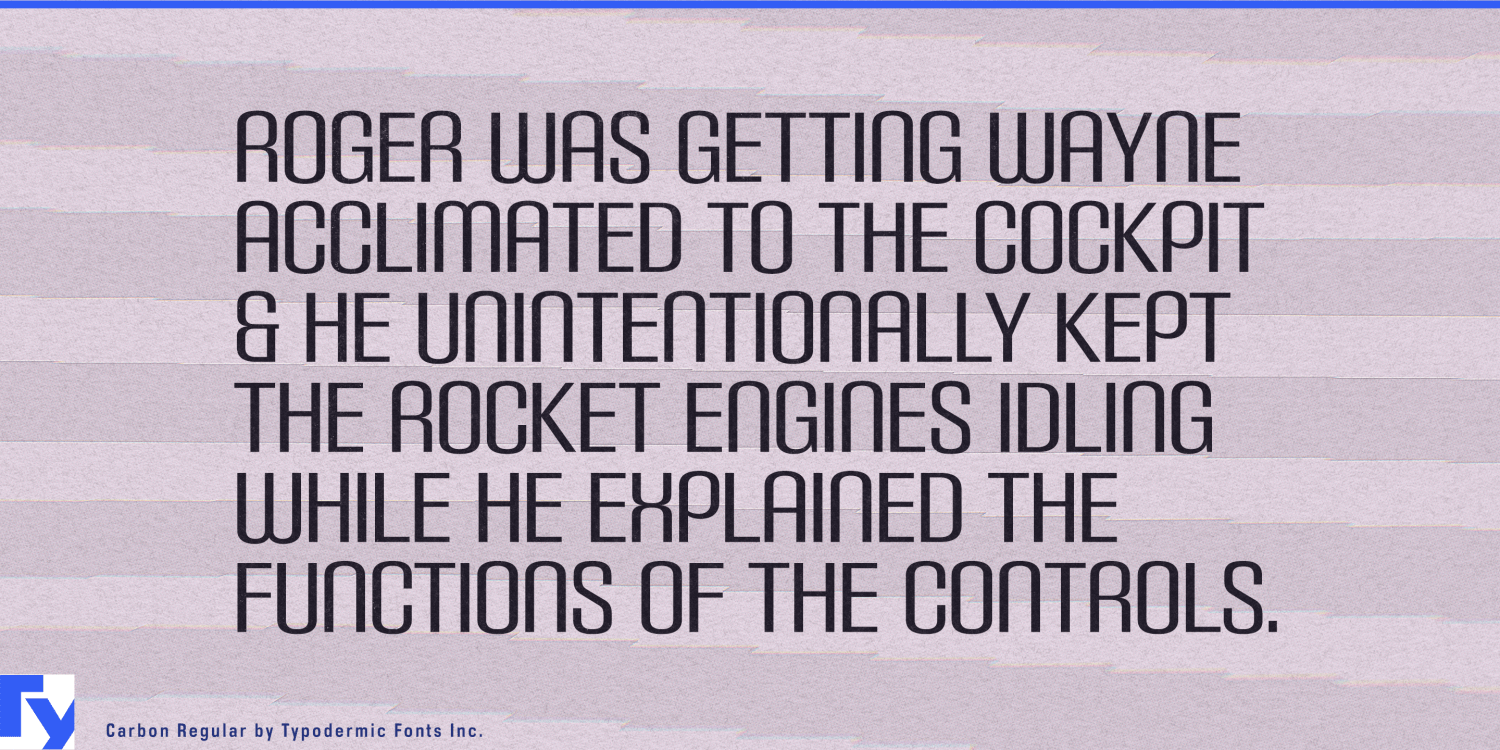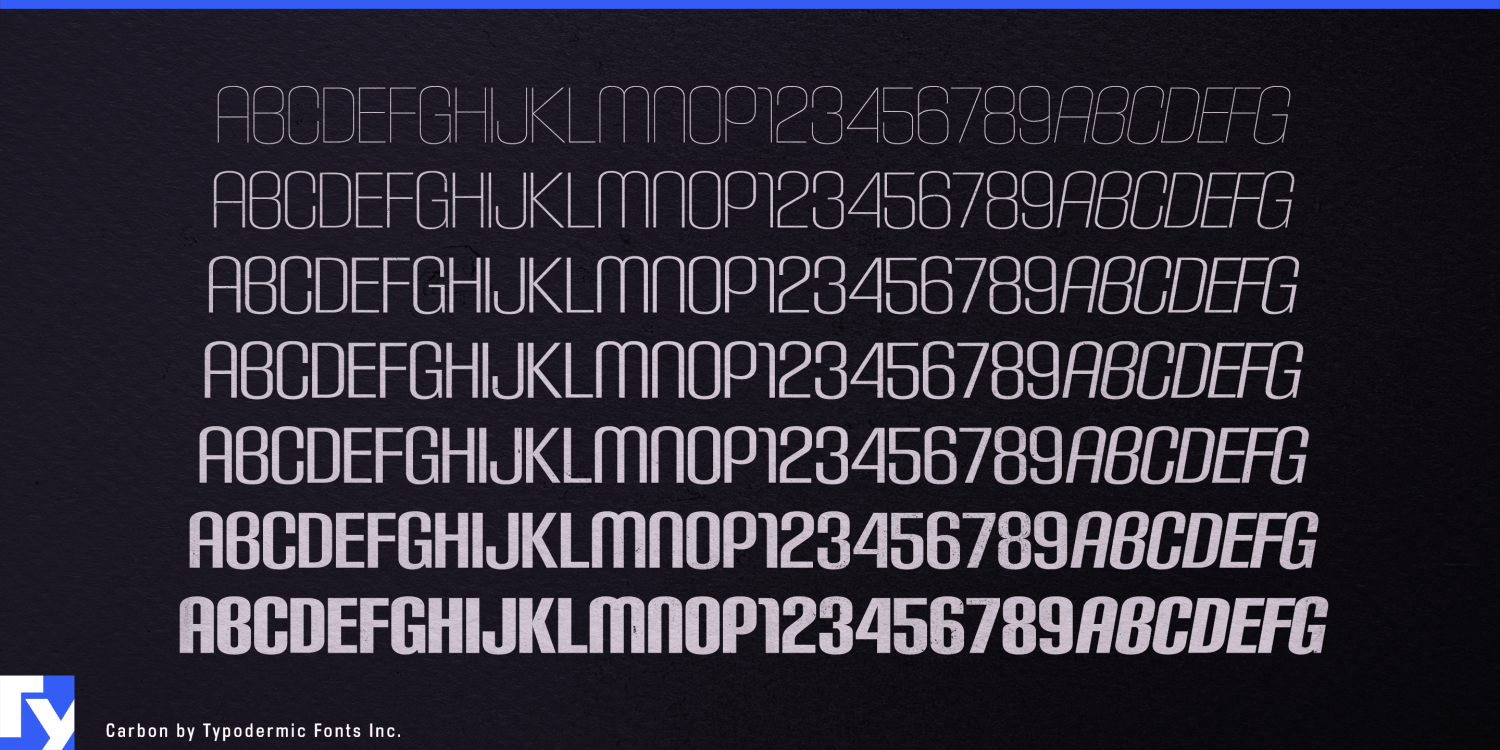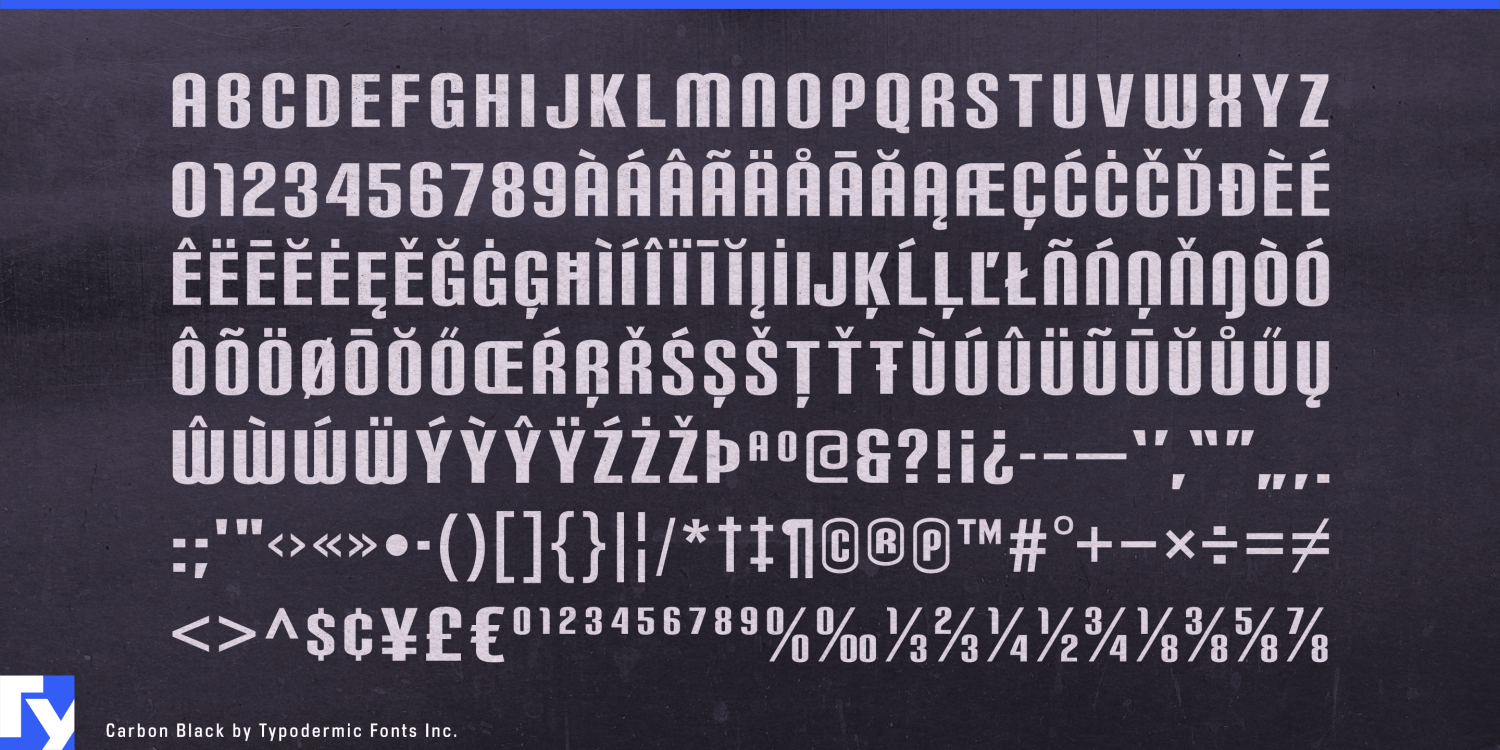
About Carbon
Carbon stands as a monument to typographic brutalism, a unicase typeface that has been shaping the landscape of graphic design since the dawn of the millennium. Its refined modularity and distinctive capsule forms challenge conventional notions of letterforms,…